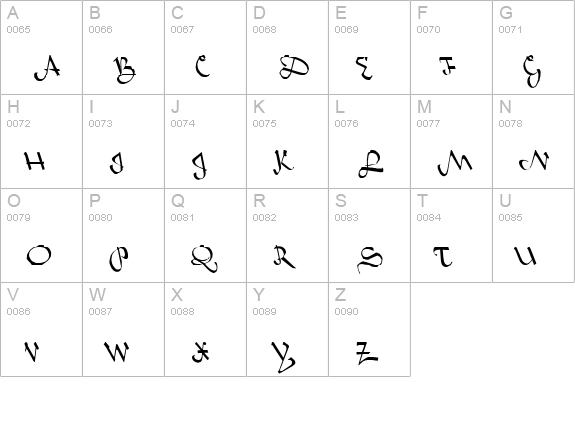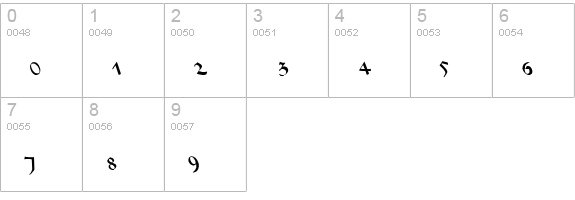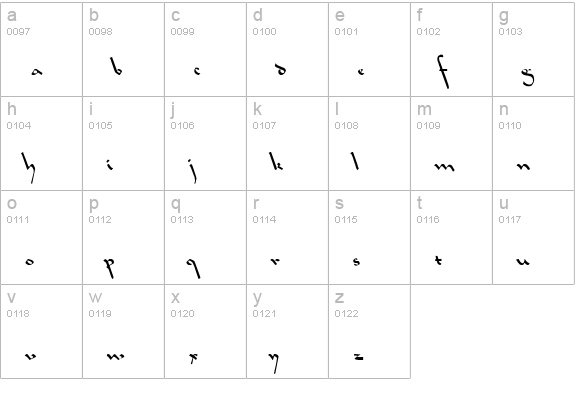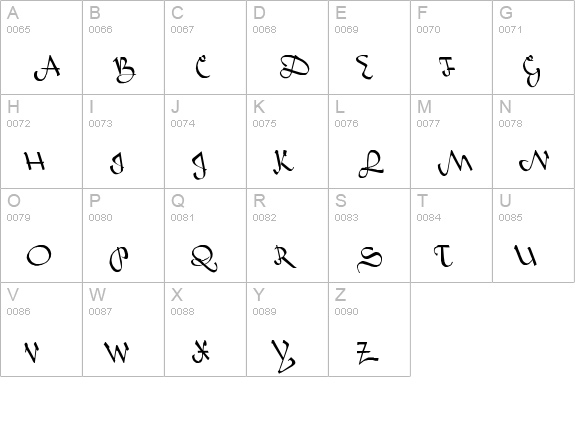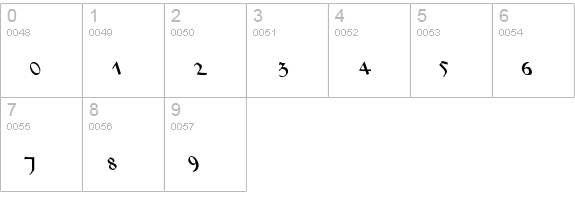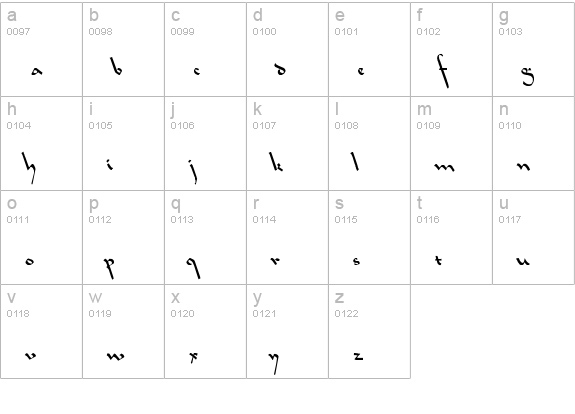
Sahara Normal leftie is the standard, neutral variant in the Sahara typeface family \xE2\x80\x94 well suited to general body text, paragraphs, and standard typographic work.
Introducing Sahara Normal leftie font, a captivating typeface that effortlessly combines elegance and uniqueness. This font is perfect for those seeking to add a touch of sophistication to their designs while maintaining a sense of individuality. Sahara Normal leftie font stands out from the crowd with its graceful curves and balanced letterforms, making it an ideal choice for various projects, including branding, logo design, invitations, and more. Whether you are creating a professional presentation or designing a personal project, this font will elevate your work to new heights. The versatility of Sahara Normal leftie font is truly remarkable. It can seamlessly adapt to both modern and classic aesthetics, offering endless creative possibilities. Its smooth strokes and well-defined shapes create a harmonious flow that is pleasing to the eye and ensures readability in any context. One of the most enticing features of Sahara Normal leftie font is that it is freely available to download at FontsMarket.com. This means that you can easily access this extraordinary typeface without any cost, allowing you to explore your creativity without limitations. Whether you are a professional designer or a hobbyist, this font offers you the opportunity to enhance your designs with style and sophistication. In conclusion, Sahara Normal leftie font is a captivating typeface that combines elegance and uniqueness effortlessly. Its graceful curves, balanced letterforms, and versatile nature make it an ideal choice for various design projects. And the best part? It is freely available to download at FontsMarket.com, ensuring that you can bring your creative visions to life without any barriers. So why wait? Embrace the beauty of Sahara Normal leftie font and elevate your designs to new levels of excellence.